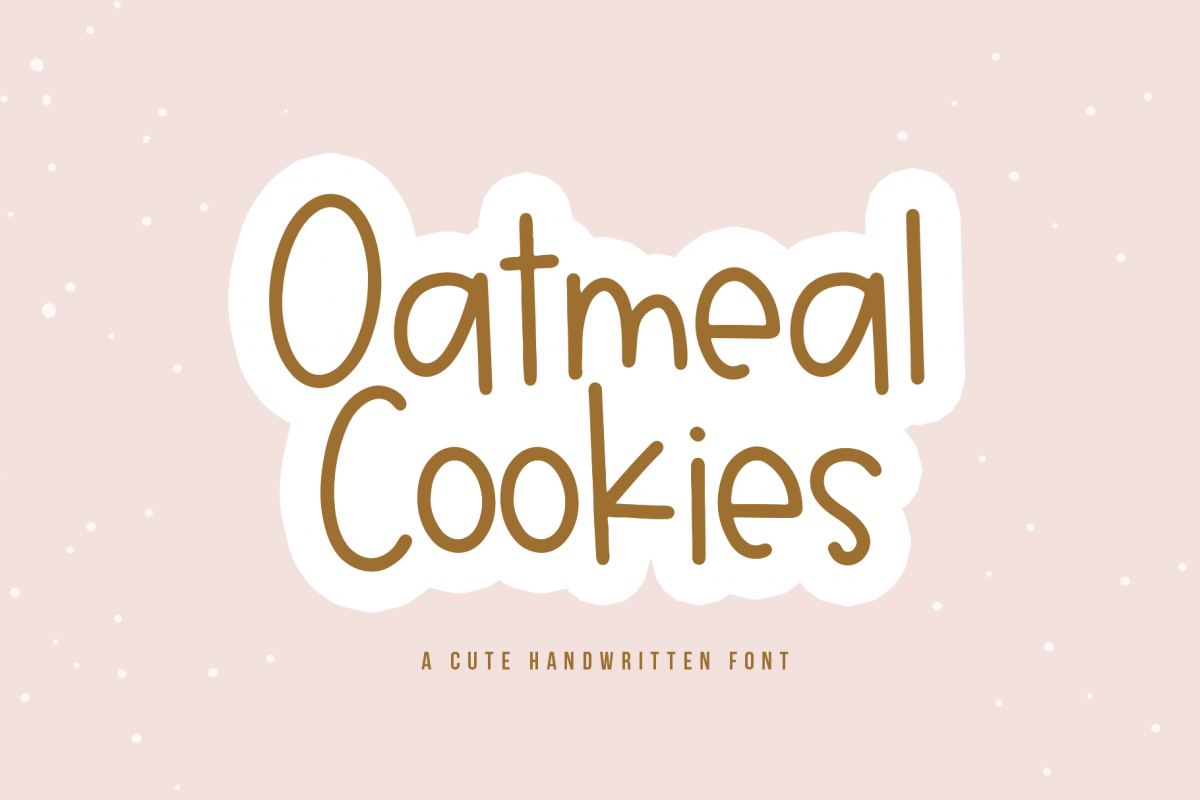
Oatmeal Cookies - A Cute Handwritten Font
Oatmeal Cookies is a cute + neatly written font.
The letters are smooth + bold and perfect for your crafting projects!
This font is perfect for quotes, shirt designs, websites, branding, children's designs,  blogs, logos, invitations and more!
Most accent characters included.